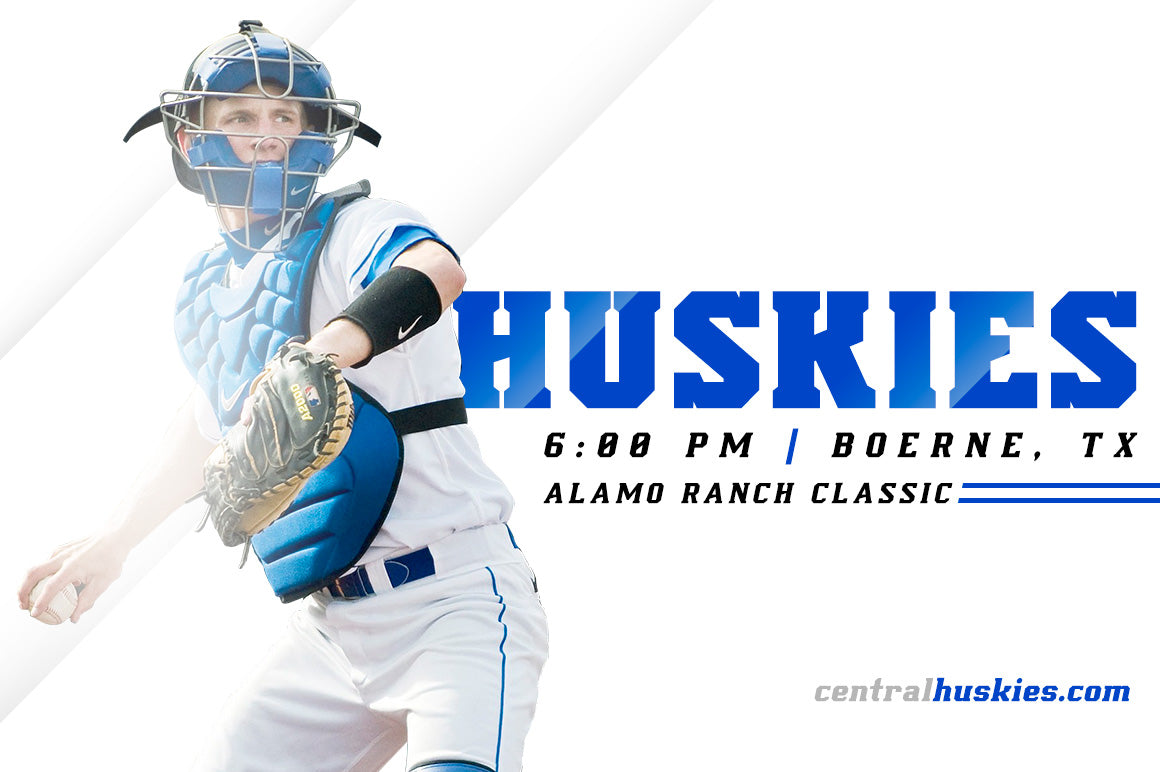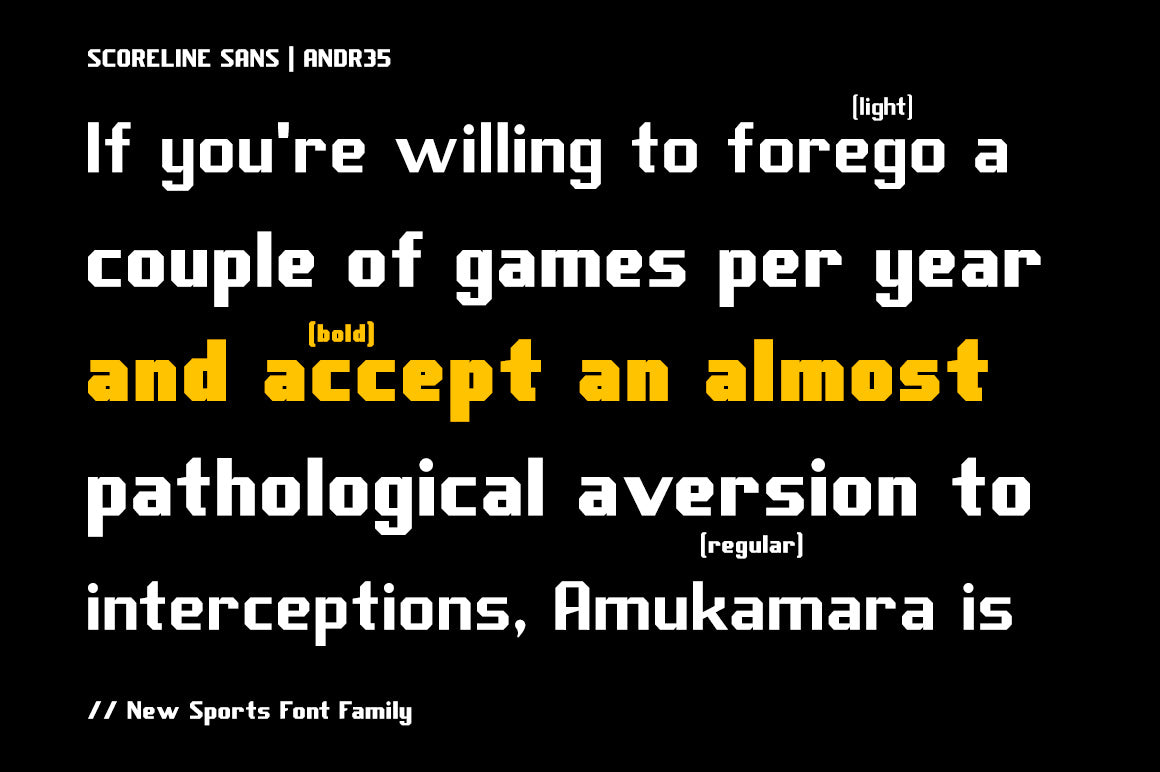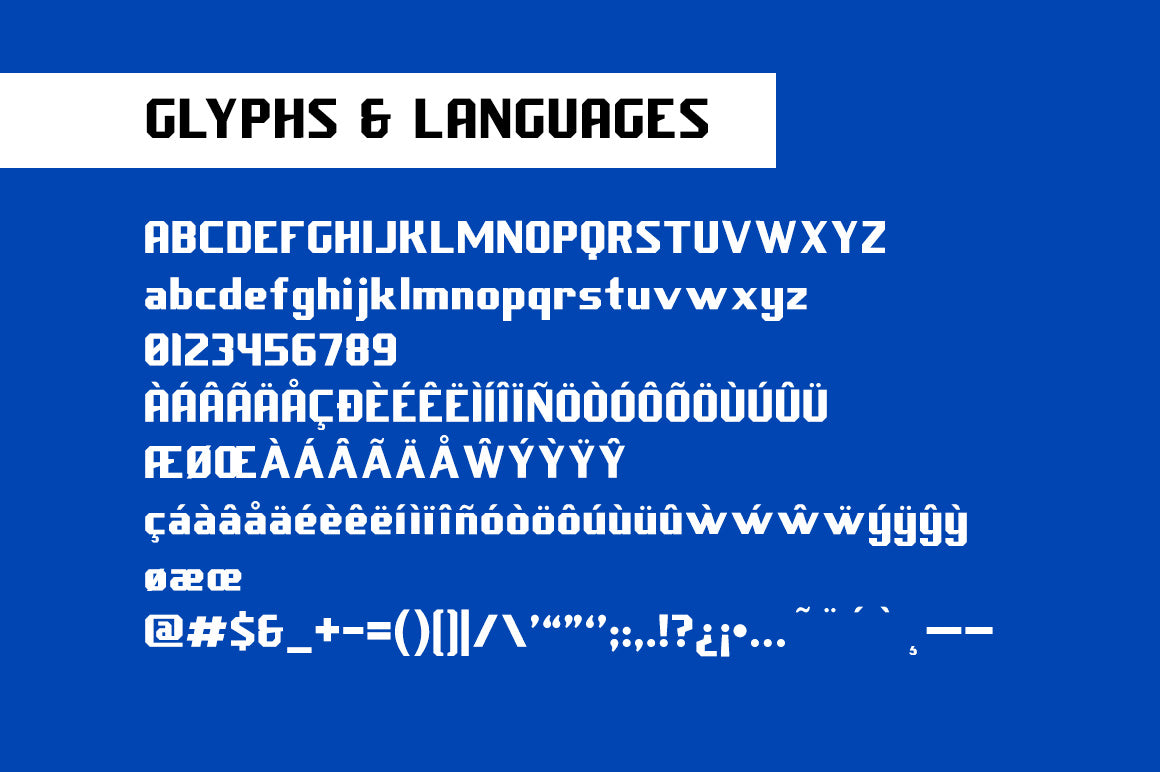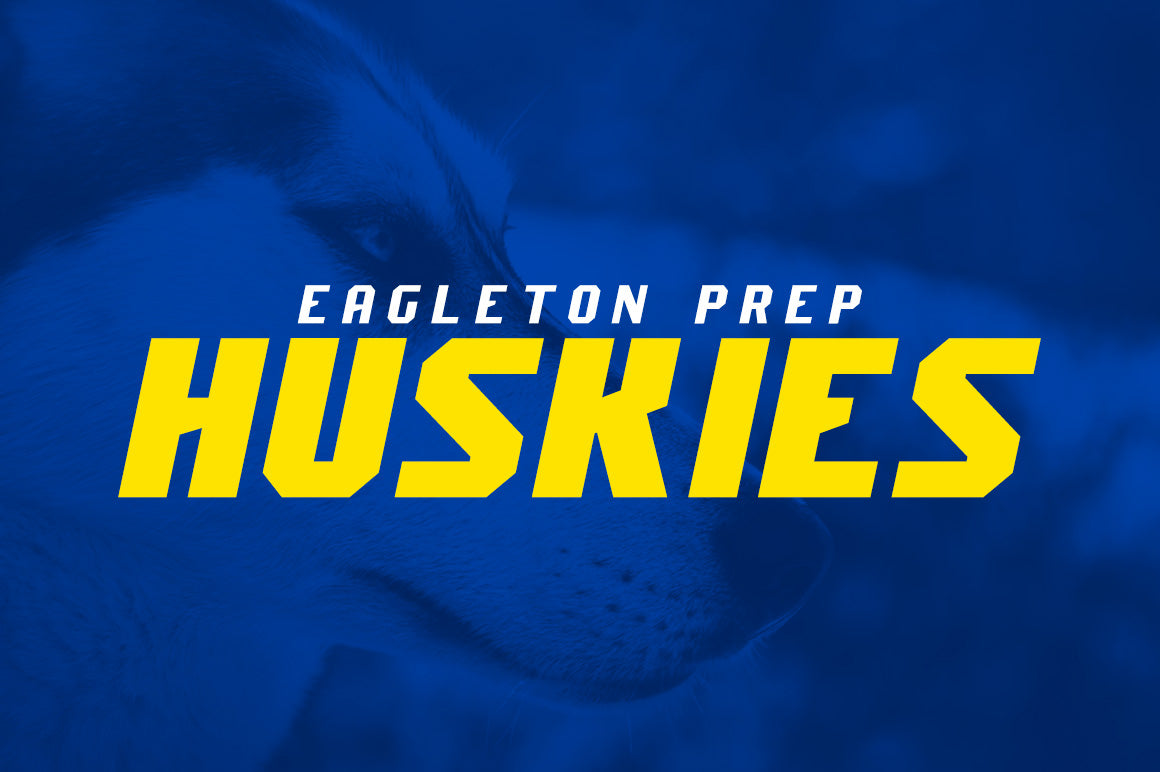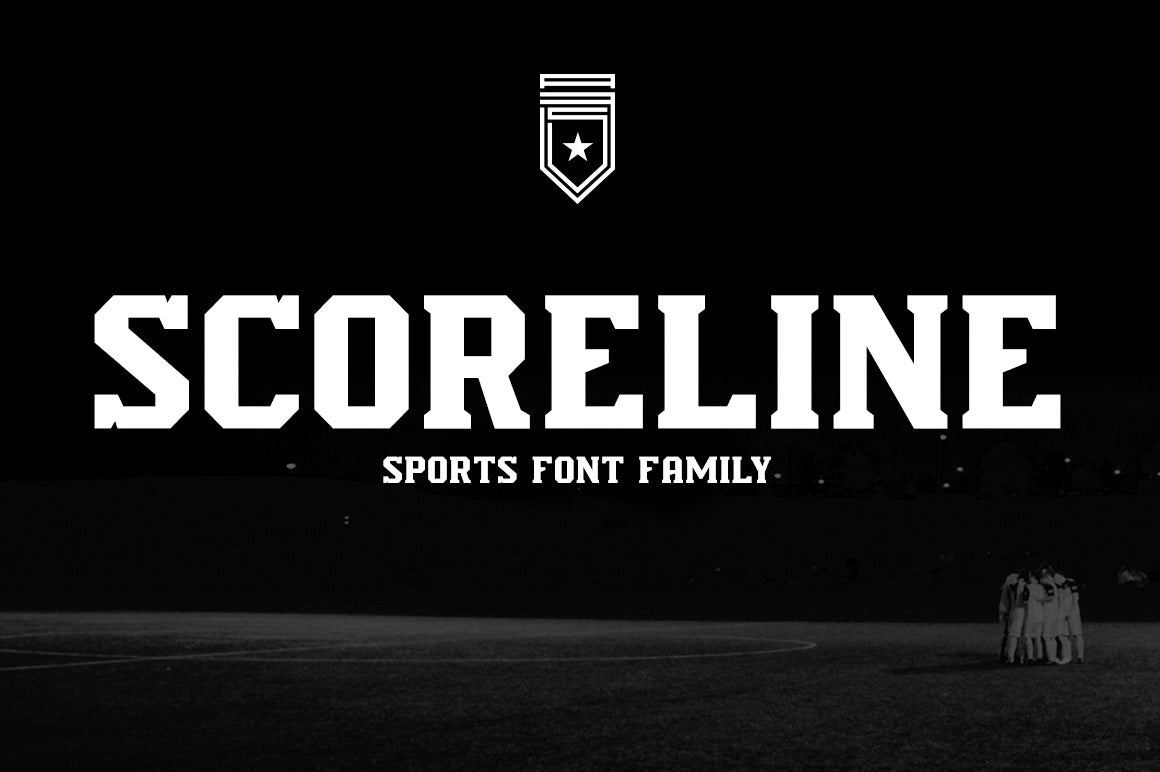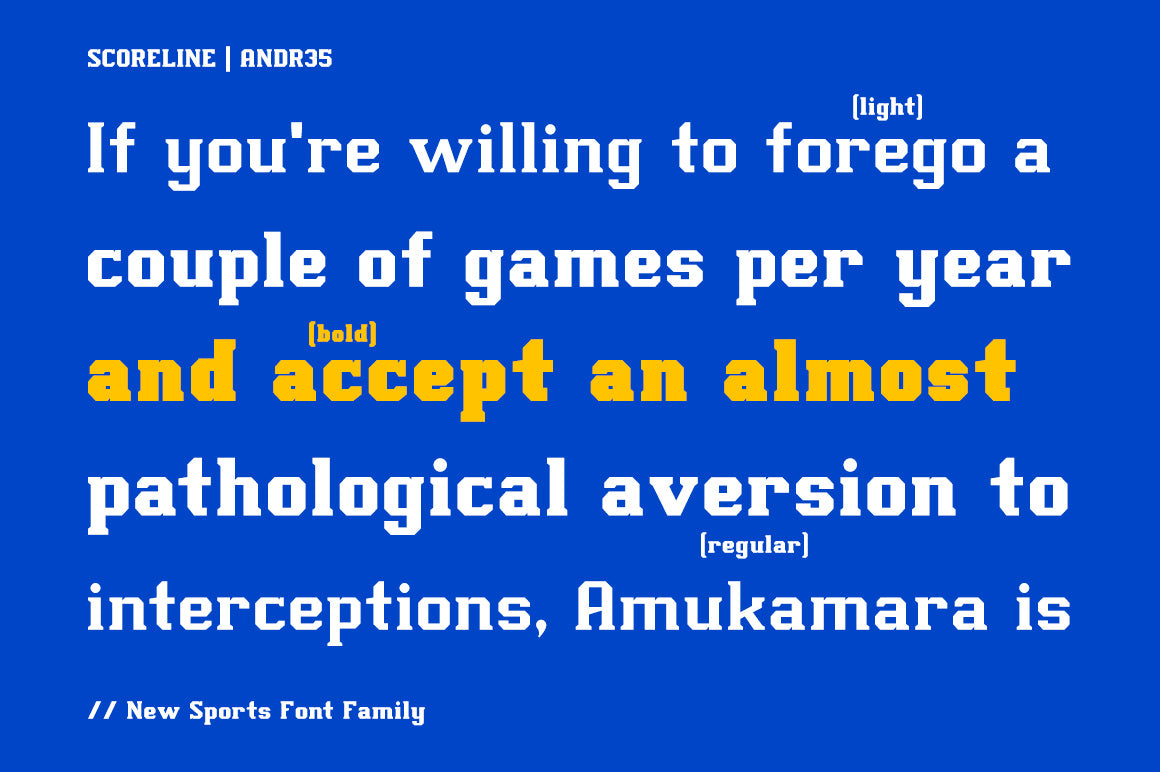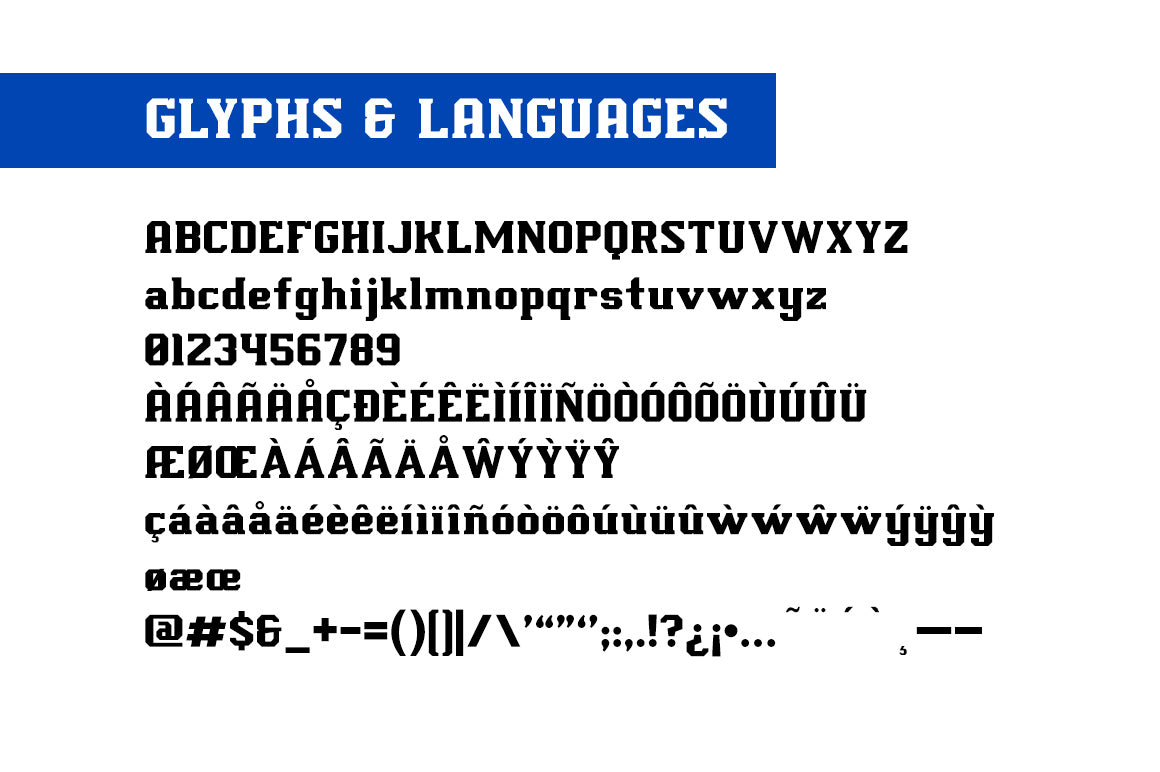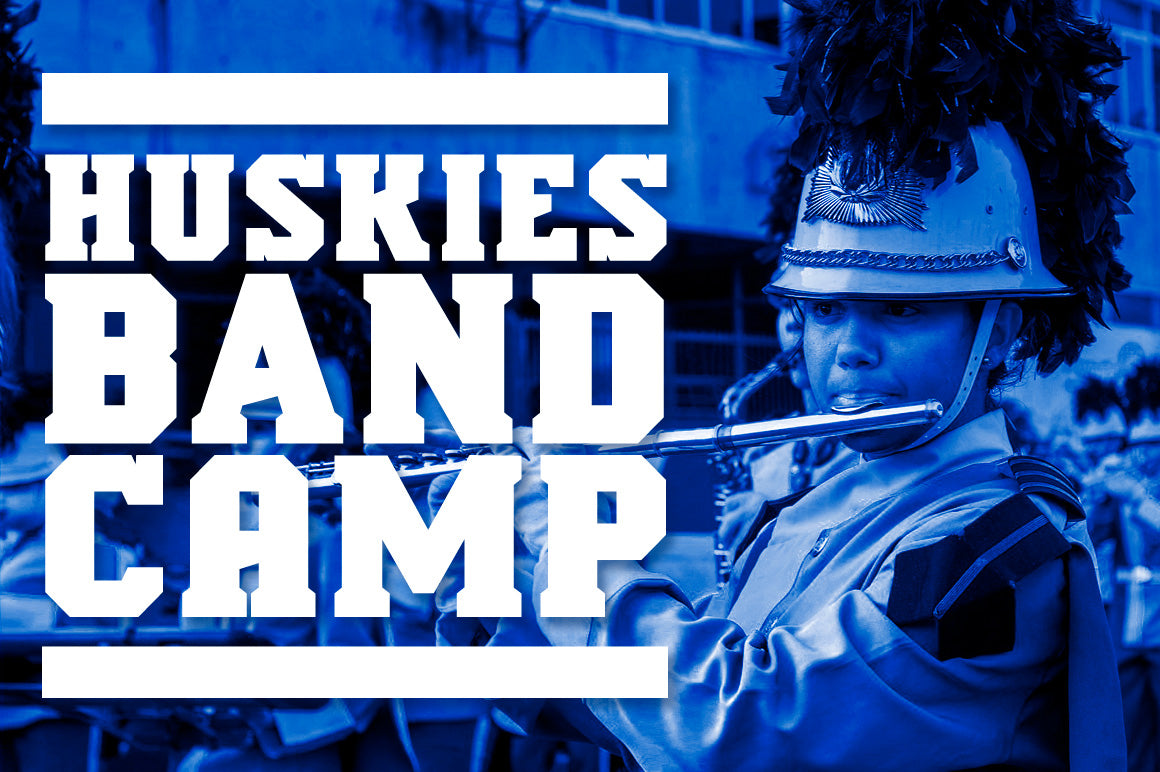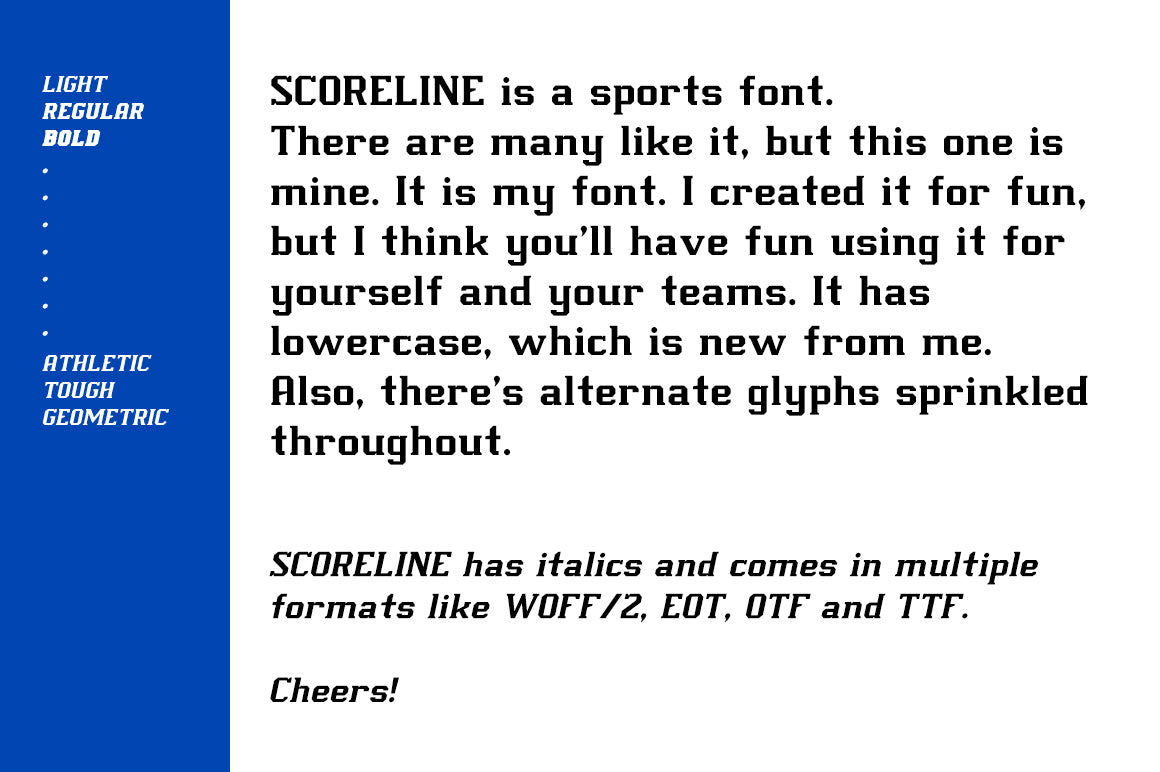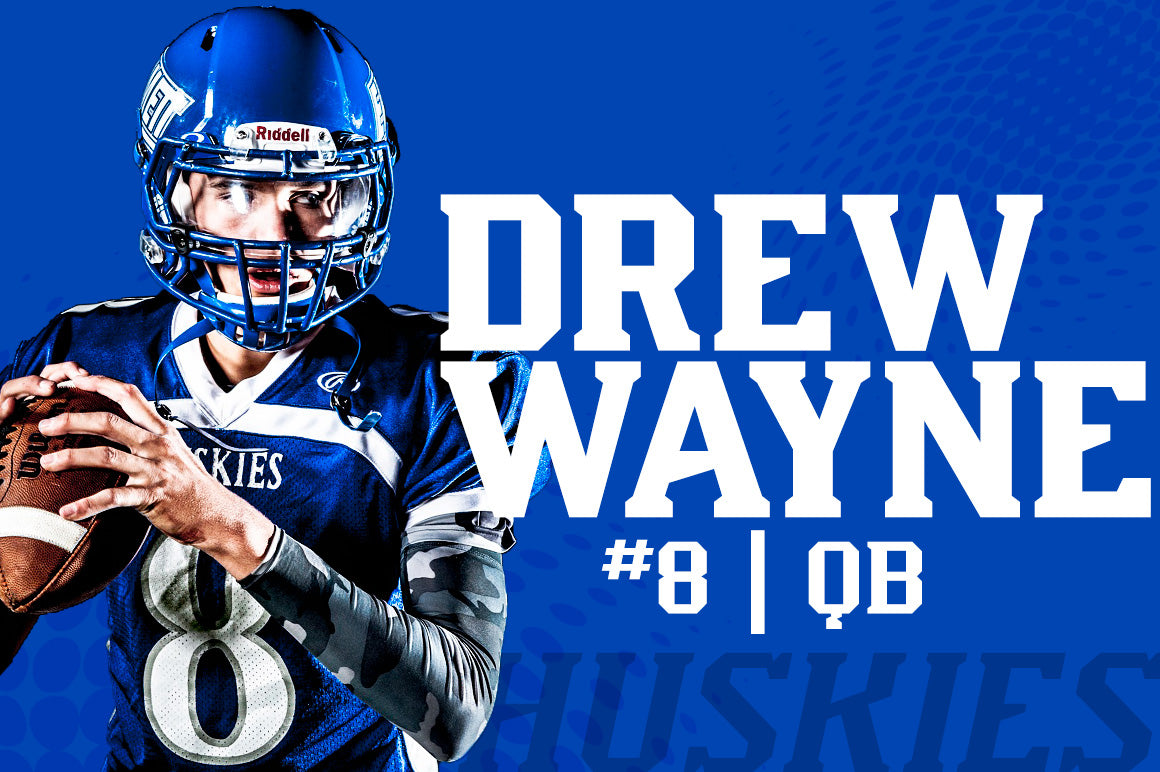
Scoreline Sports Font Family
Scoreline is a modular, sports-minded slab and sans serif family inspired by and created for sports designers and their teams/organizations
- Scoreline: 3 weights, 3 Italics
- Scoreline Sans: 3 weights, 3 Italics
- Alternate Glyphs
- Basic Language Support
Inspiration for Scoreline came from sports logo design and Nike's recent NCAA/NFL type systems. It features lowercase glyphs which most sports fonts don't contain, so hopefully you'll find that useful.